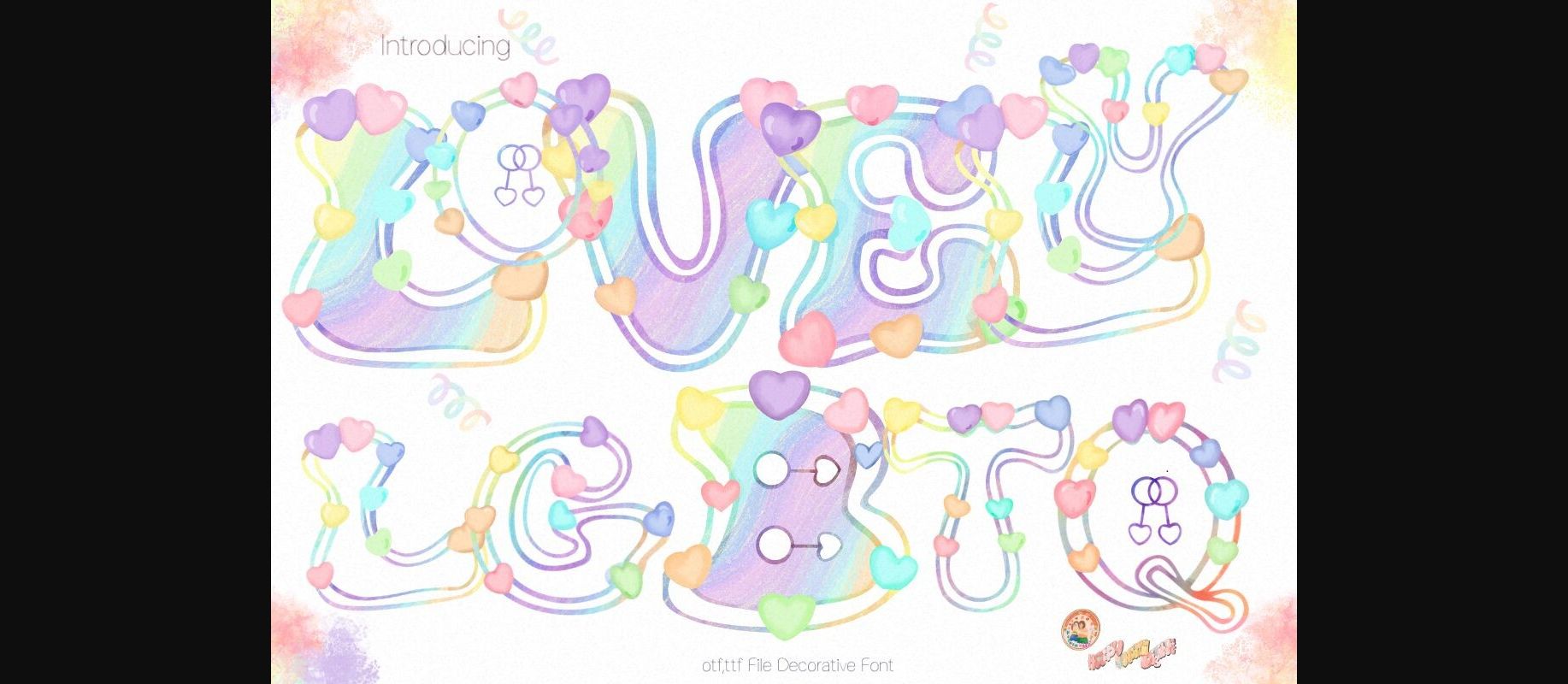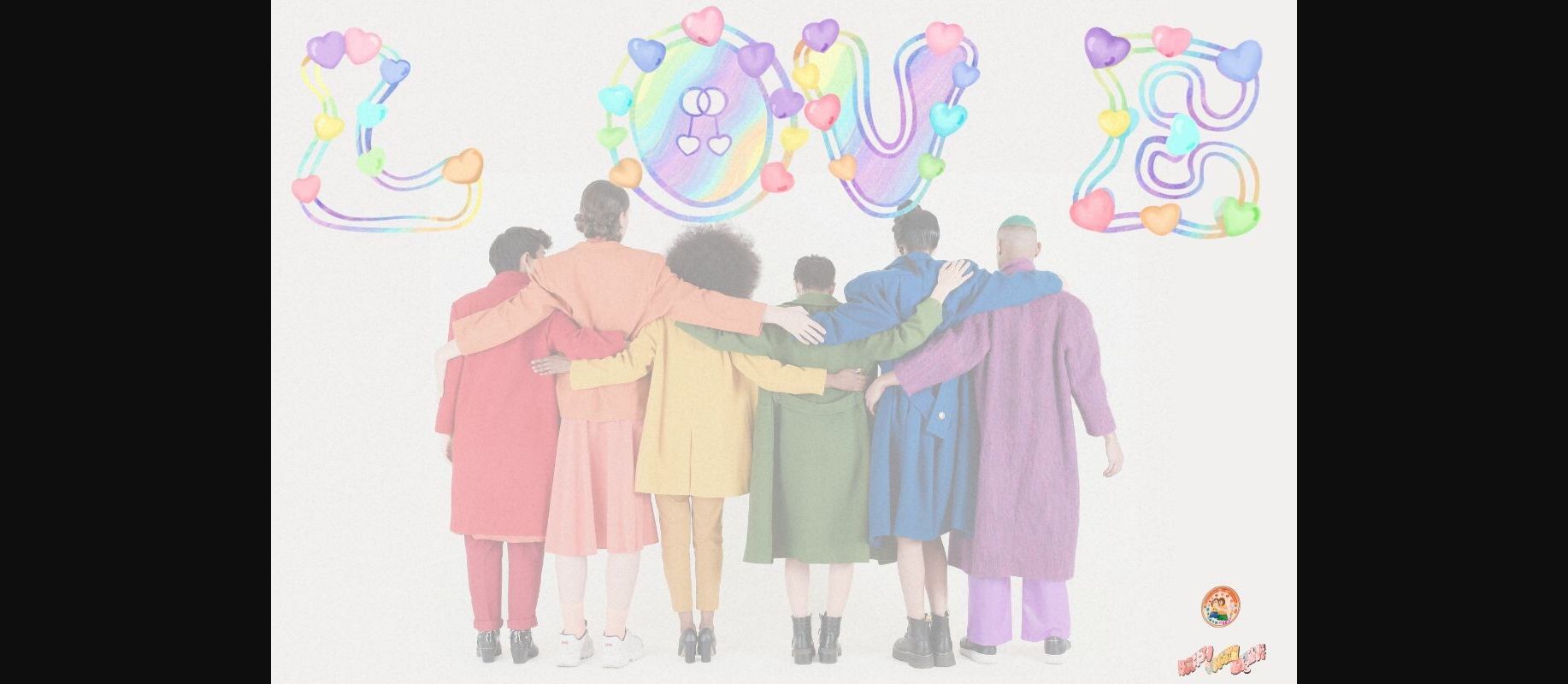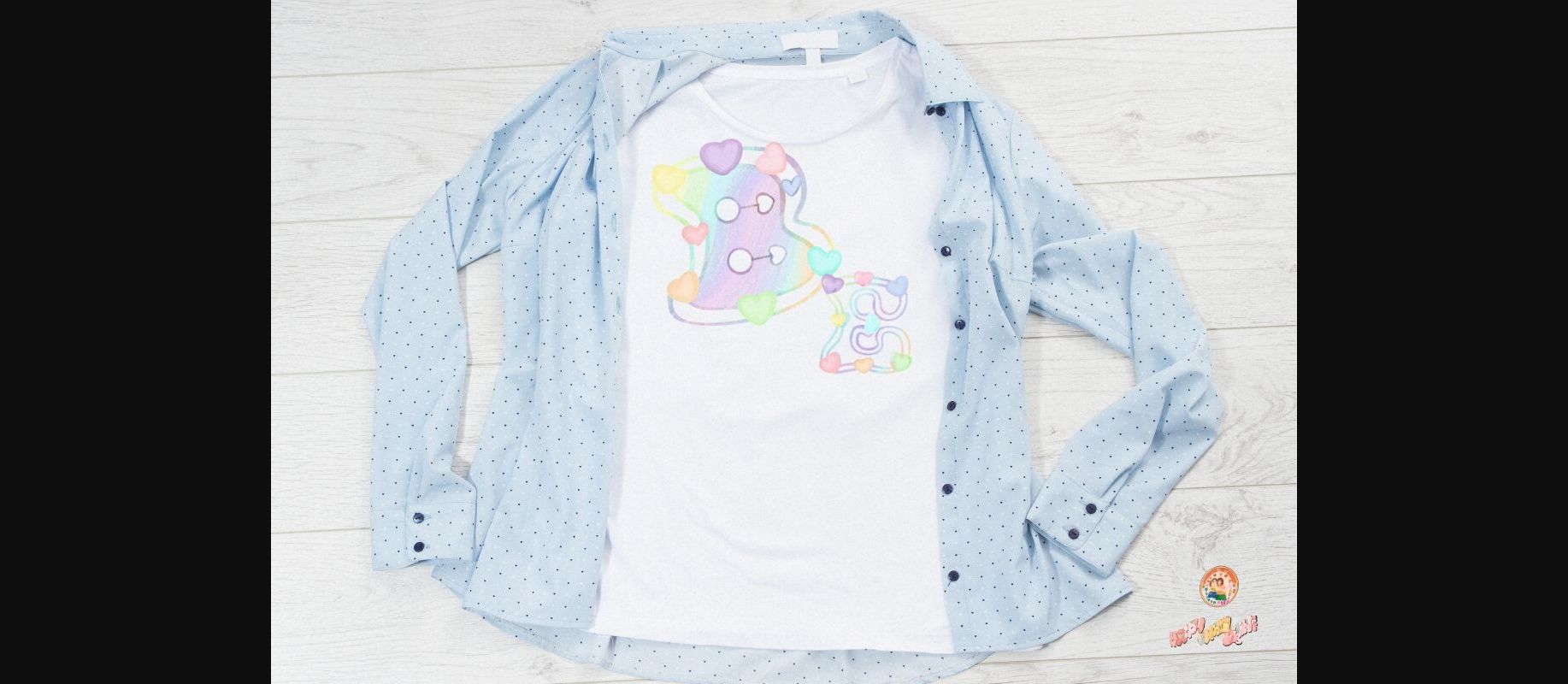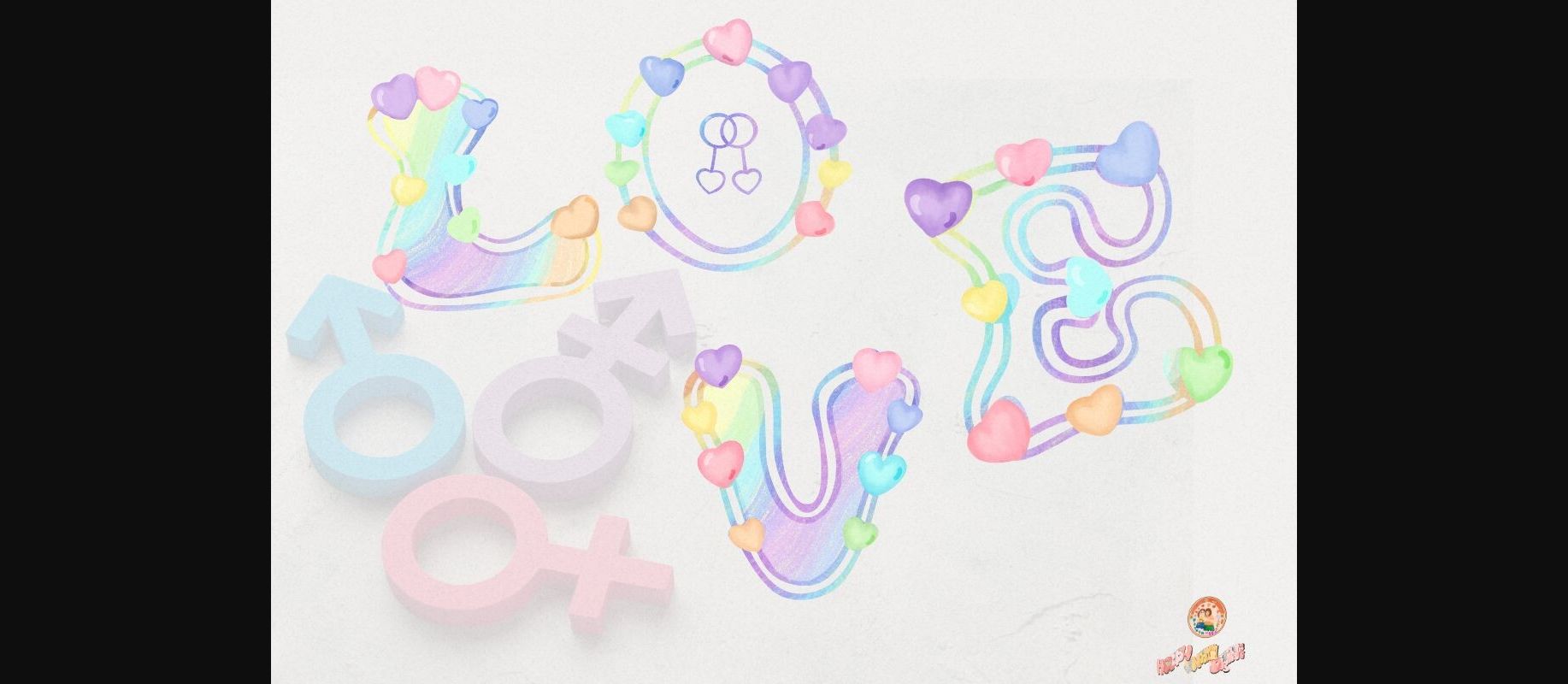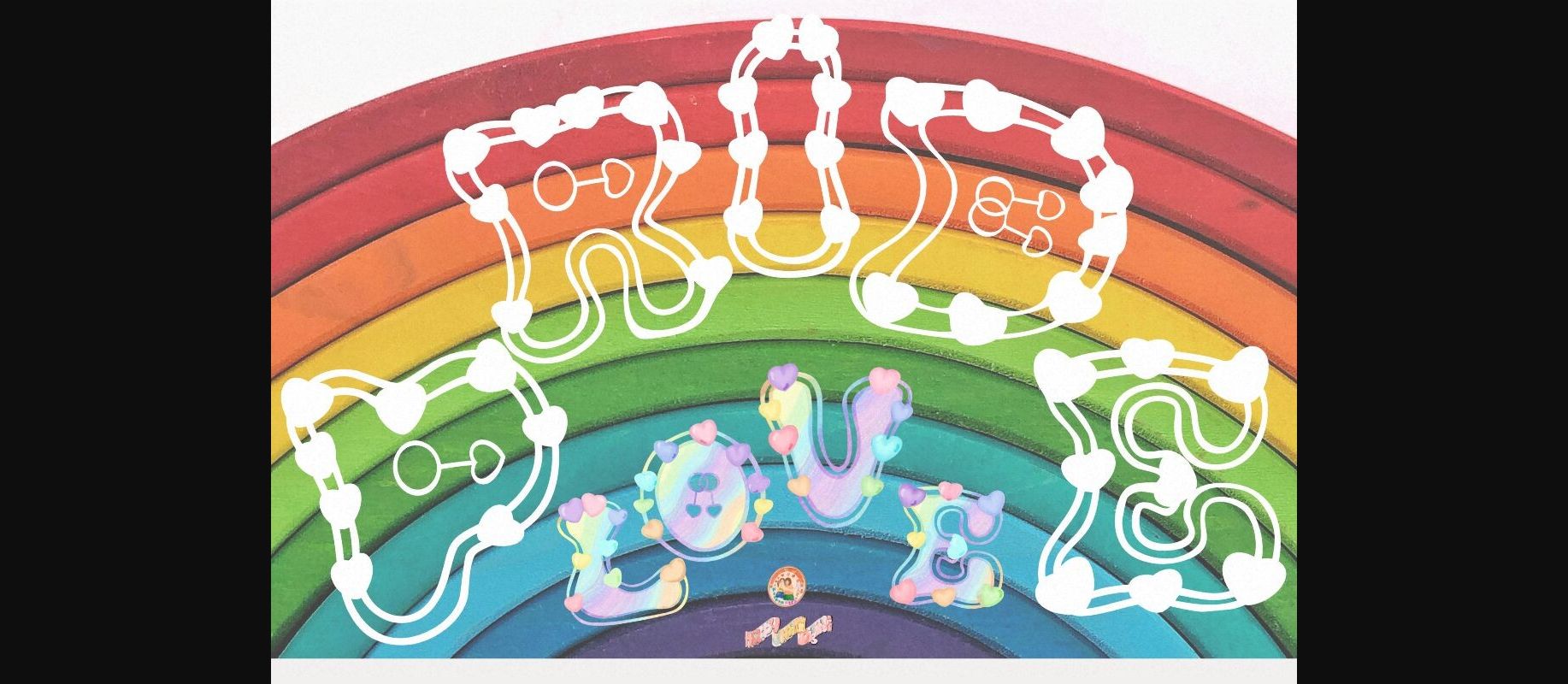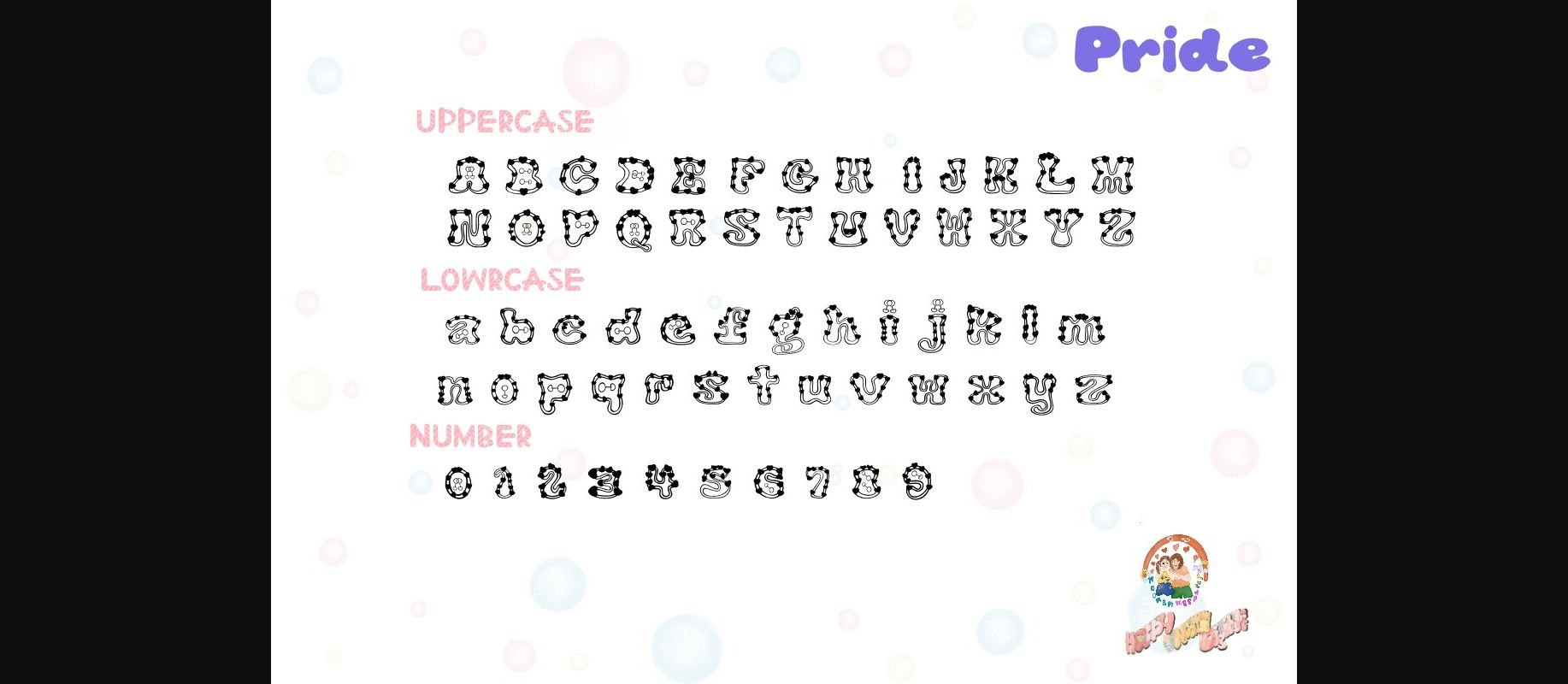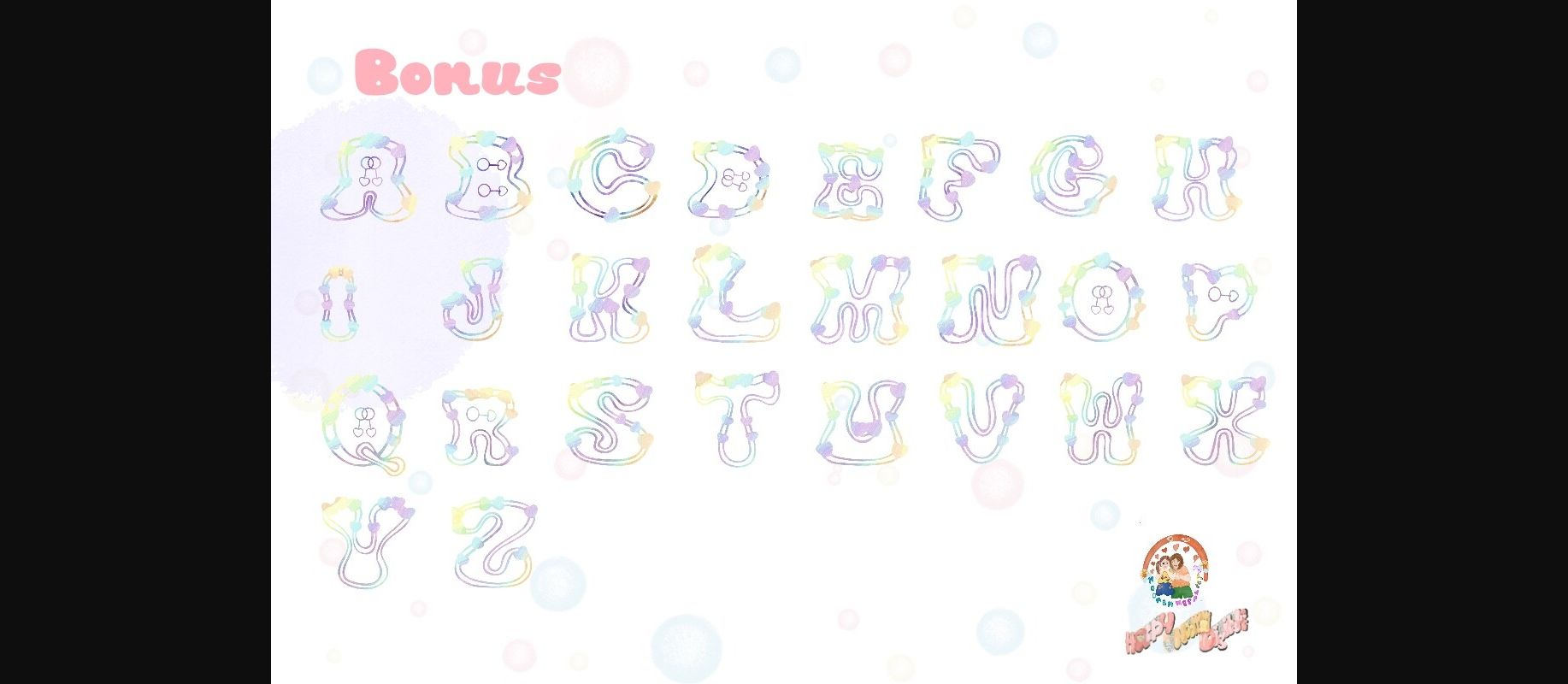
Lgbtq Lovely Font
About Lgbtq Lovely Font
Introduction “LGBTQ Lovely decorative font, a playful and stylish font with a youthful spirit.
Projects such as as branding designs, labels, websites, and business cards as well as casual designs like packaging, posters, flyers, quotes, social media posts, invitations, special occasions cards, etc